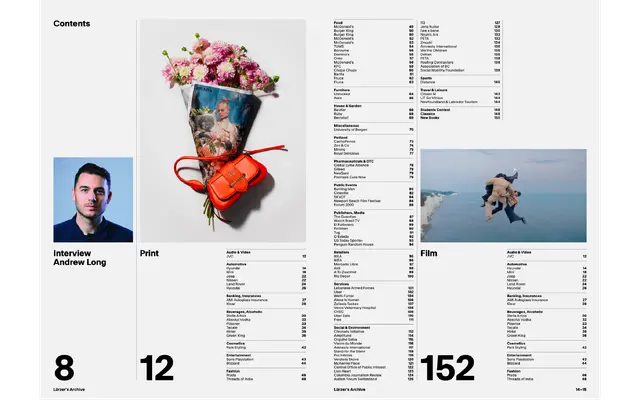
System Grotesk
Frost
System Grotesk specimen from Frost
A 26-style grotesque family from Frost spanning 13 weights, from Hairline to Black, with a distinctive Skeleton cut alongside the standard and italic styles.
The family covers an unusually broad tonal range, running from Ultrathin and Hairline through to Heavy and Black, with matching italics throughout. A Skeleton weight adds a structural, open-counter variant that sits outside the typical weight progression. A Wide subfamily extends the range further for display and headline use at expanded proportions.
System Grotesk is a grotesque sans-serif with a wide weight range from Hairline to Black, including a Skeleton cut, consistent with the neo-grotesque tradition adapted for contemporary use.
System Grotesk Wide